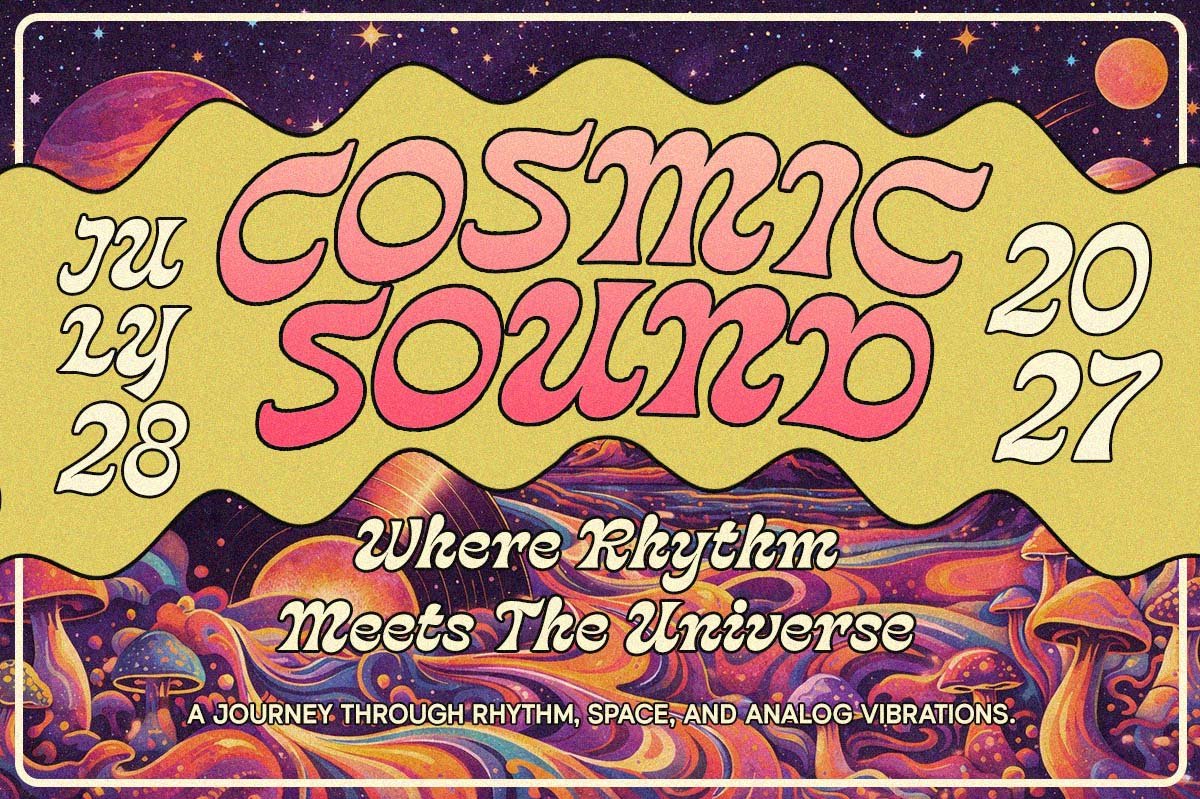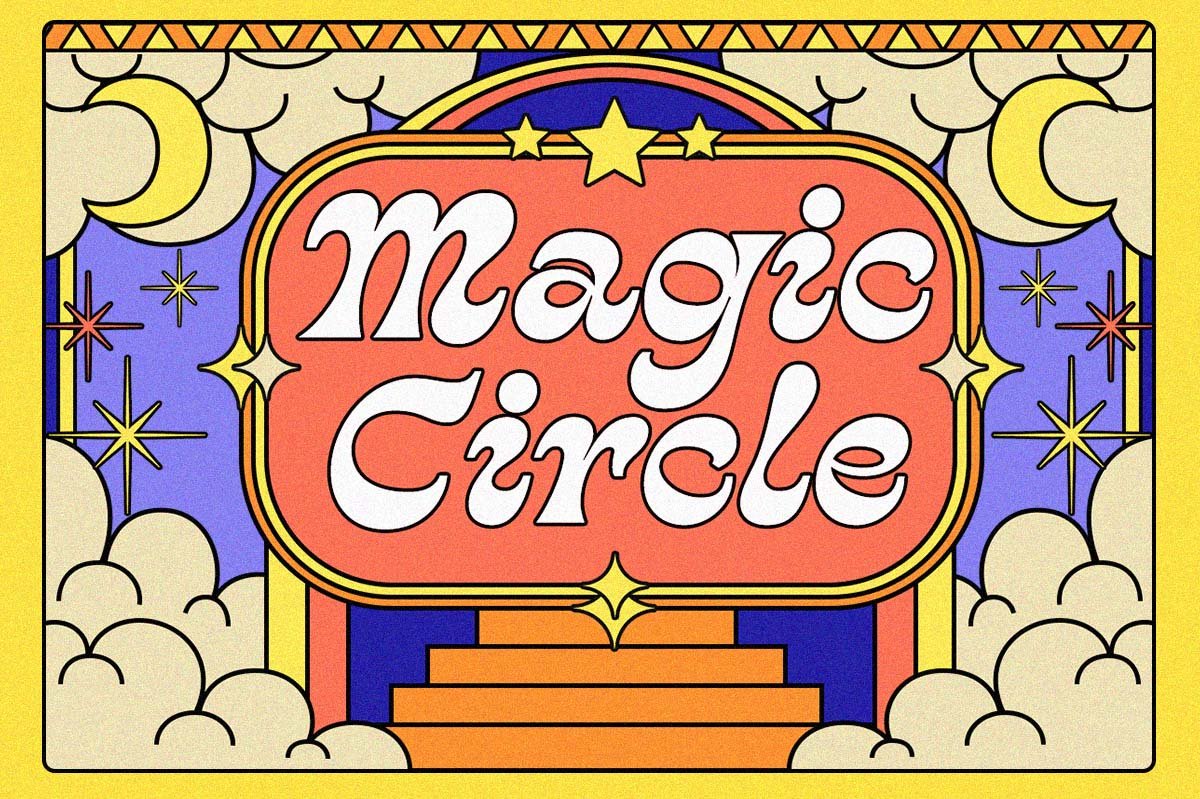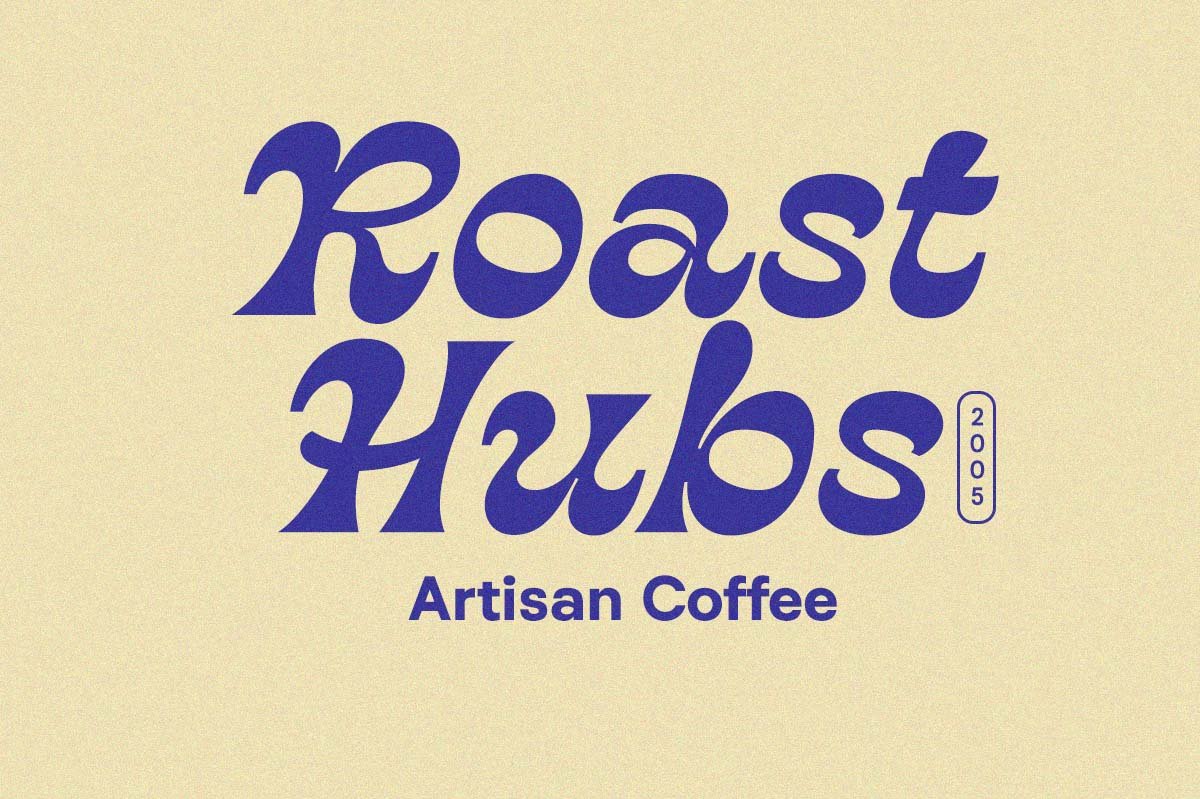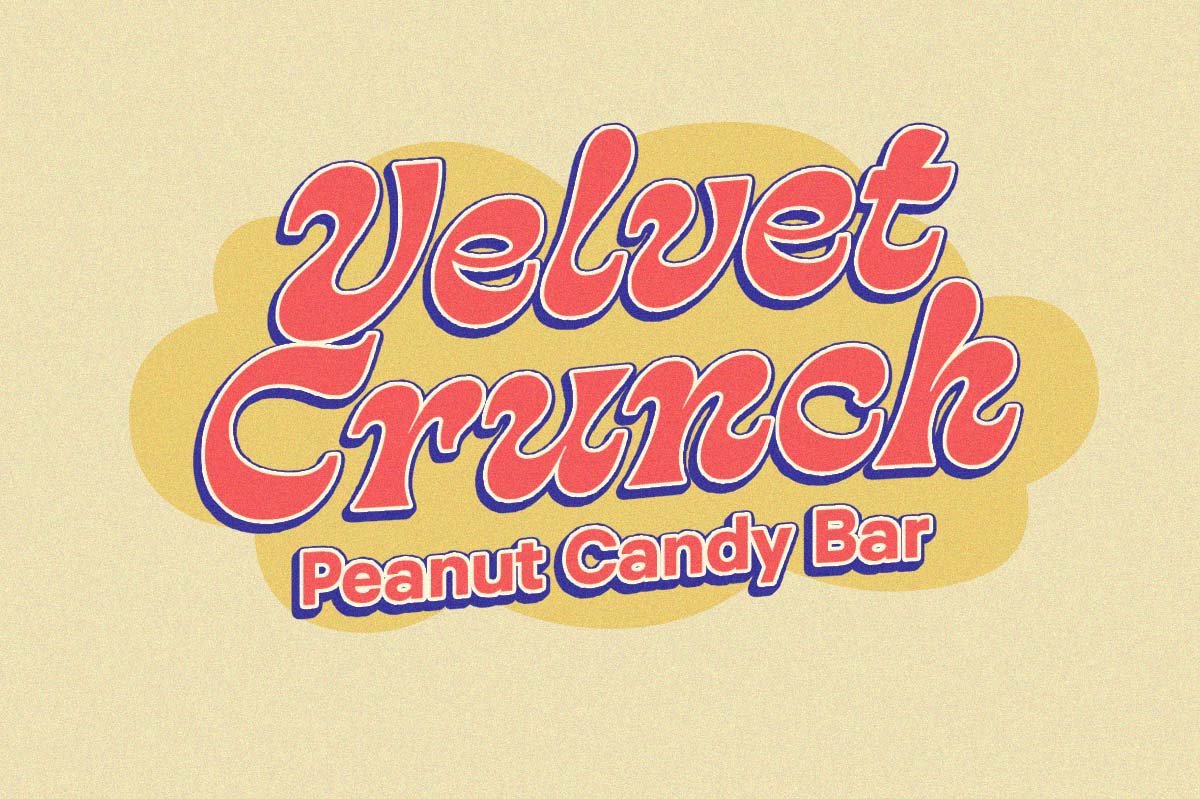
Morheim Font
Morheim Display feels bold, juicy, and full of attitude—like a splash of golden type on a deep night backdrop. With its chunky curves, soft serif edges, and slightly groovy rhythm, this typeface brings a playful retro punch while still looking clean and confident. The shapes are smooth but expressive, giving every word a lively bounce that stands out instantly.